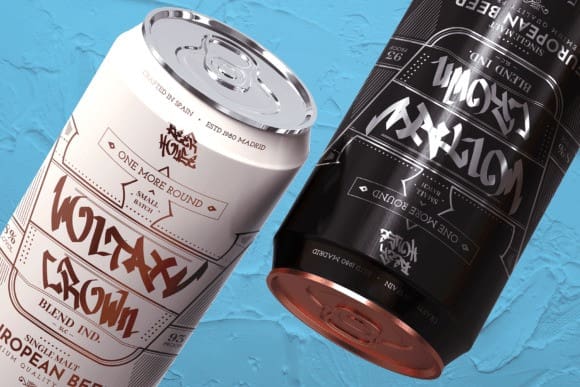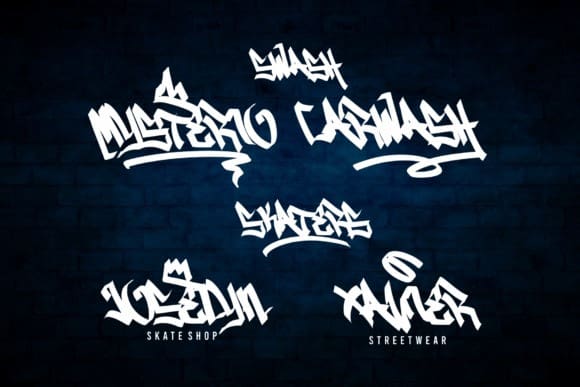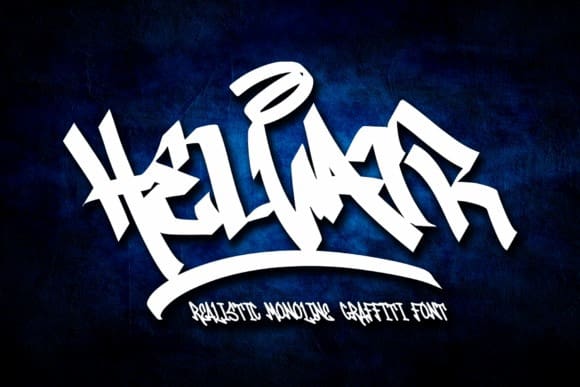
Helvair Graffiti Font
Helvair Graffiti Font is a cool and unique handwritten display font. Its realistic, graffiti-style appearance is perfect for all your projects that require a trendy, urban touch.